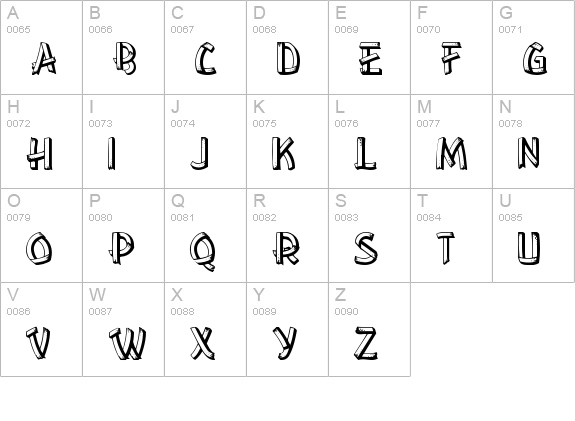
Homeboy Display SSi Font Details
Homeboy Display SSi is a bold and eye-catching font that adds a touch of personality and flair to any design project. With its unique and distinctive style, this font is sure to make a statement and grab attention. Whether you are creating posters, banners, logos, or any other creative project, Homeboy Display SSi is the perfect choice to make your text stand out. The best part? Homeboy Display SSi is available for free download at FontsMarket.com. So, you can easily access this amazing font without any cost. Don't miss out on the opportunity to enhance your designs with the striking and dynamic Homeboy Display SSi font. Download it now and let your creativity shine!